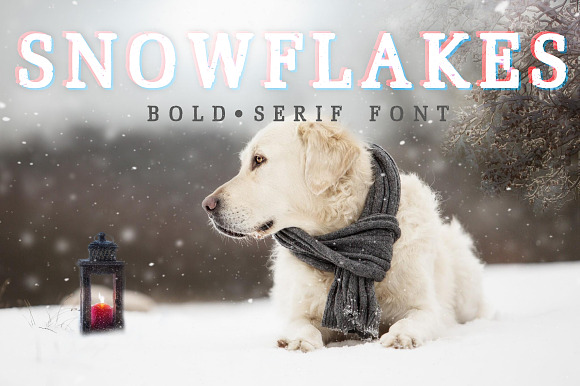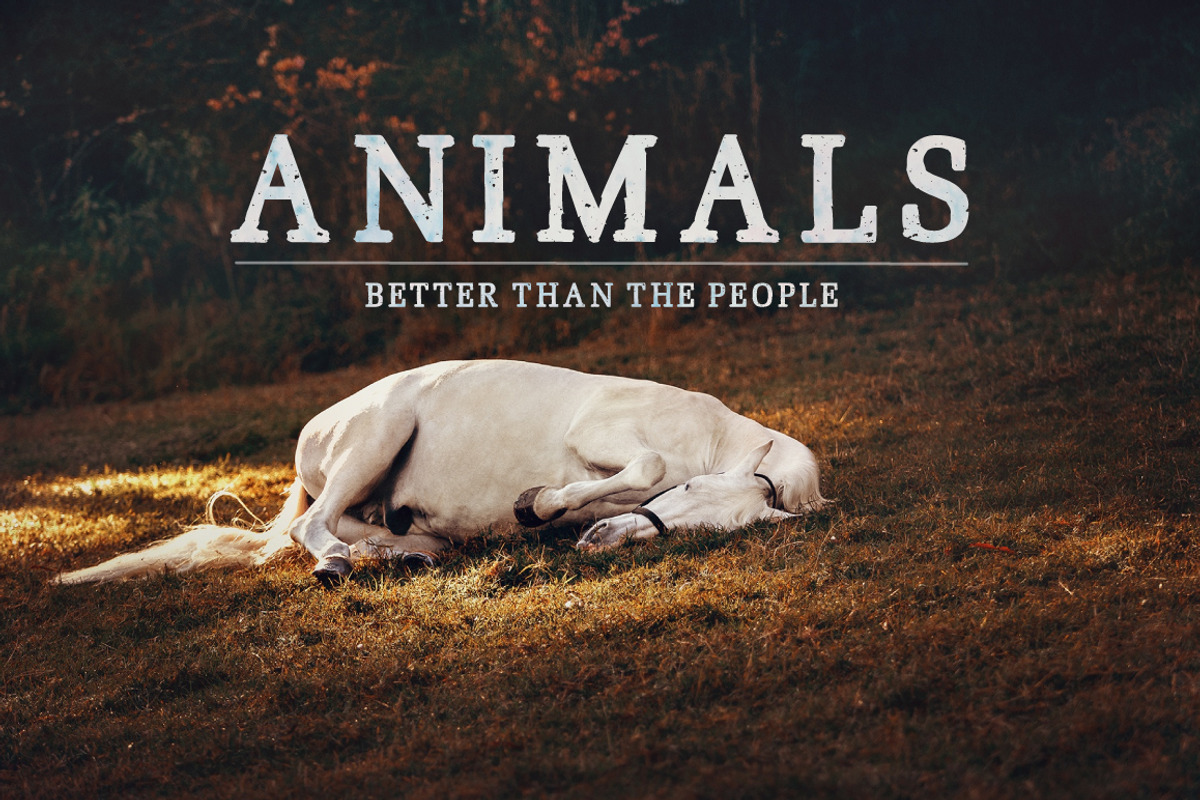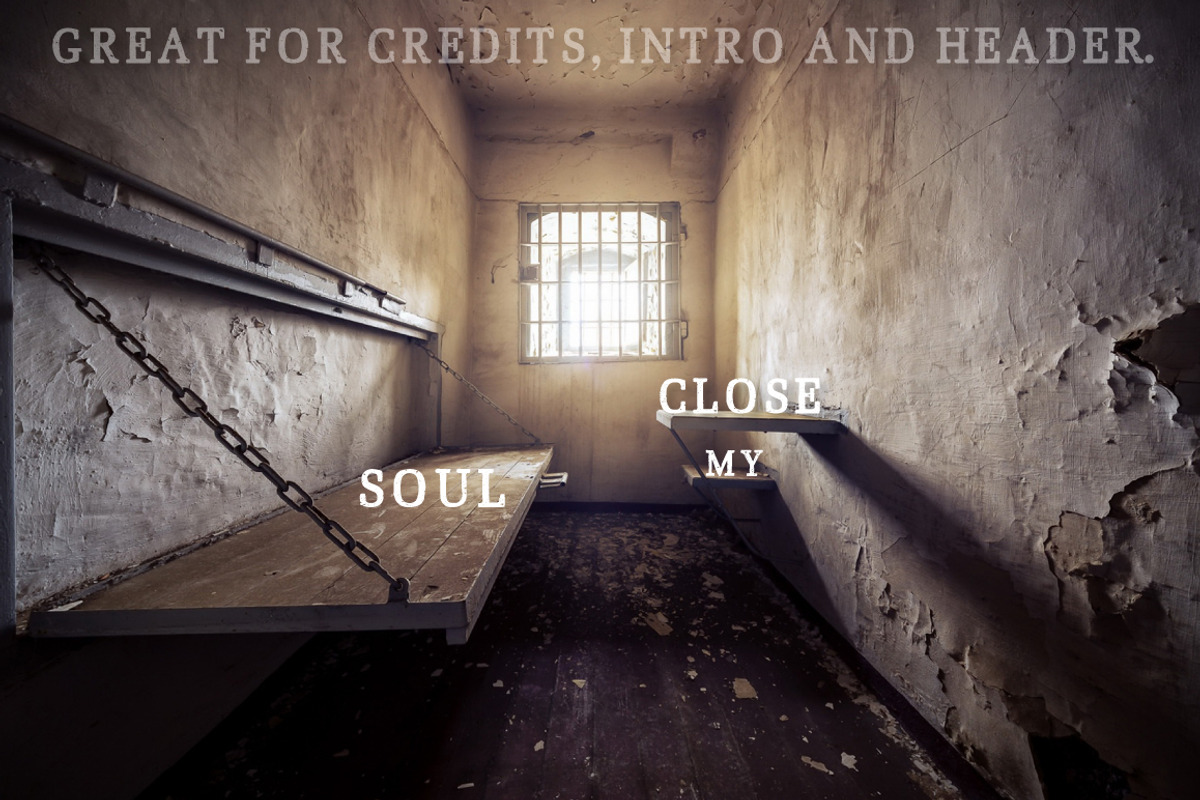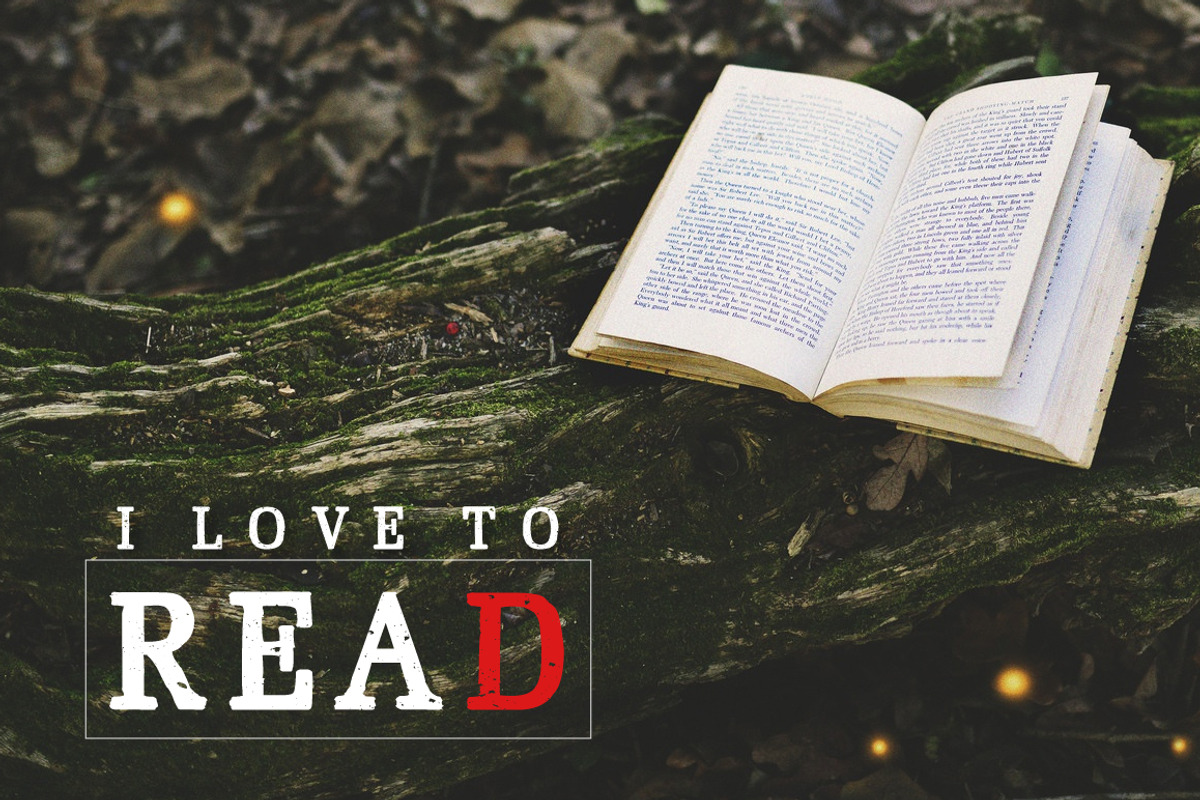
Snowflake font
The font that came to my head when I looked at the swirling snowflakes that slowly fall to the ground. Perfectly drawn details and selected a size makes the font versatile. Use it in your best work and you will not regret it!
- Capitals.